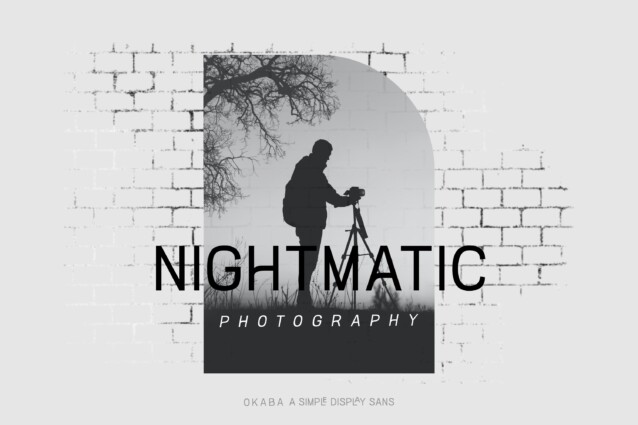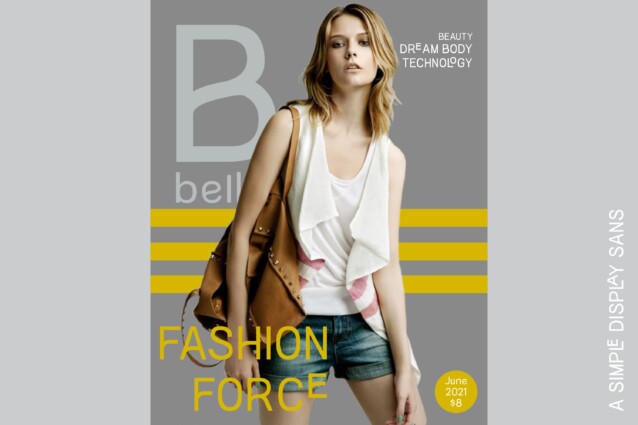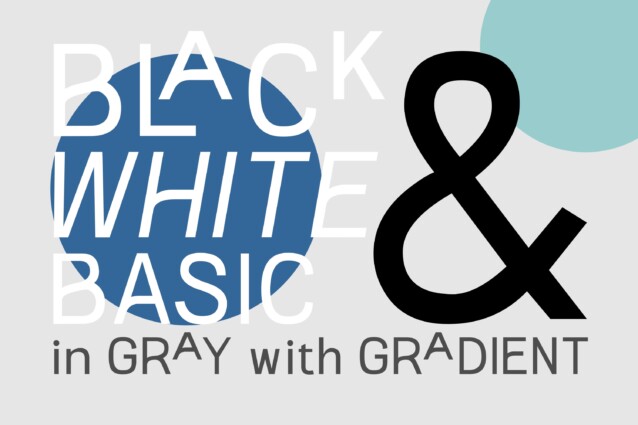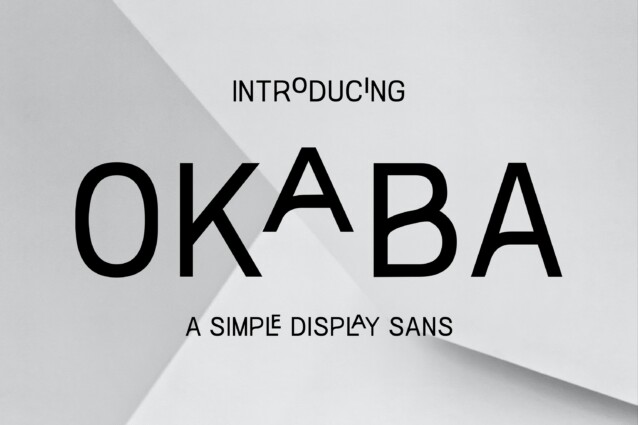
Okaba Font
Okaba Font is a sans-serif font that defies convention with a playful twist. A display typeface at its core, complete with several ligatures and alternatives for capital letters. With a clean, minimal, and modern sans typeface. Look elegant by using ligatures for your magazine, brochure and editorial layouts.